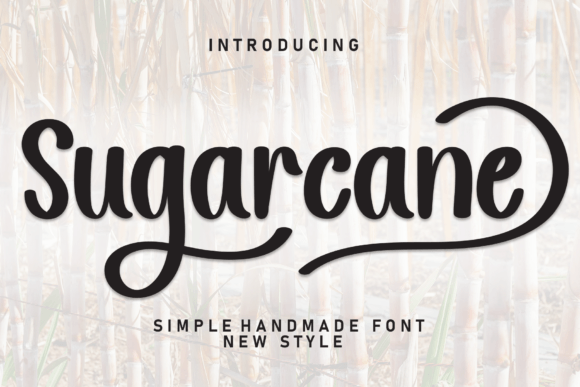
Introducing Sugarcane Font: The Gateway to Extraordinary Calligraphy
In a world where words take flight, Sugarcane Font emerges as a mesmerizing handwritten script, crafted with love by the visionary William Jhody. This font's enchanting aura evokes the warmth of summer days, the charm of vintage postcards, and the delicate grace of nature's embrace.
Picture this: your wedding invitations adorned with Sugarcane's elegant strokes, carrying the promise of a love story unfolding like a timeless melody. Its whimsical characters dance across the page, beckoning guests to a celebration filled with joy and heartfelt moments.
Or envision your branding materials imbued with Sugarcane's captivating allure. Logos, business cards, and marketing campaigns will radiate with a unique charm, leaving an indelible mark on the minds of your customers. This font's versatile spirit lends itself to a symphony of creative possibilities, transforming ordinary designs into captivating masterpieces.
Step into a world where imagination knows no bounds, where words become art, and emotions find their voice through the enchanting allure of Sugarcane Font. Its delicate curves and playful swashes will transport you to a realm where every letter tells a story, every phrase paints a picture, and every design captivates the heart.
This font is not just a collection of characters; it's an experience, an expression of your individuality, a testament to your impeccable taste. With Sugarcane Font, you'll discover a new dimension of creativity, where your designs blossom into works of art that whisper tales of elegance and whimsy.
So, embark on this extraordinary journey with Sugarcane Font, and let your creativity soar to new heights. Embrace the magic of handwritten charm, and let your designs bloom with a captivating grace that will leave a lasting impression on the world.